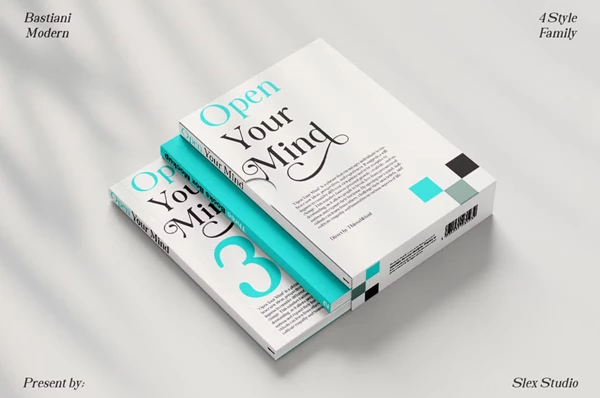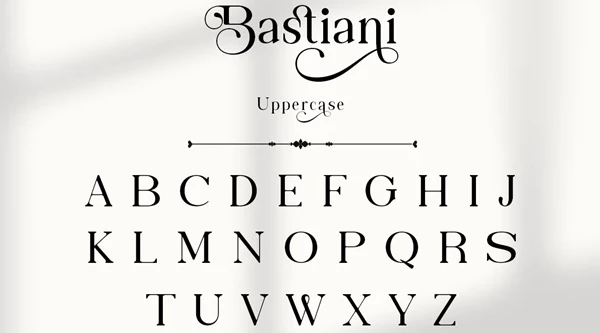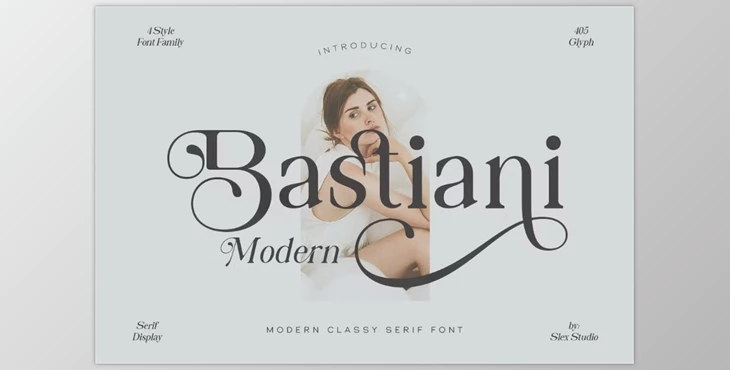
Bastiani Modern Font:
Modern Bastiani boasts distinctive features like gentle, rounded serifs which add a warm touch to the font, making it a stylish serif typeface. While Bastiani Modern is a contemporary design, traditional serif fonts contain jagged or harsh angled serifs. This shift in font design allows for rounded Bastiani Modern serifs, which merge modern geometric shapes and timeless elegance simultaneously without losing the charm of the two.
- Eased Untagged Serif: Sets it further apart from traditional serif fonts, along with providing a calm welcoming touch.
- Geometric Letterforms: Stereometric and classical balanced structures blended together for a polished look.
- Stroke Contrast: Focuses on enhancing readability, while eye-catching visual impact is created when using larger sizes.
- Subtle Range Of Use: Exceptional for editorial titles, brand identities, products in the center of luxury, and innovative advertising.
- Modern Elegance: Makes for a designers distinctive guide, where stylistic undertones of hierarchical meaning and legibility are necessary.
Bastiani modern is remarkable for those stand-out, yet approachable pieces. They're perfect for brands that want to upscale their headlines.
Bastiani's blend of modern and classic charm makes it so appealing, while remaining easy to read, no matter the application.